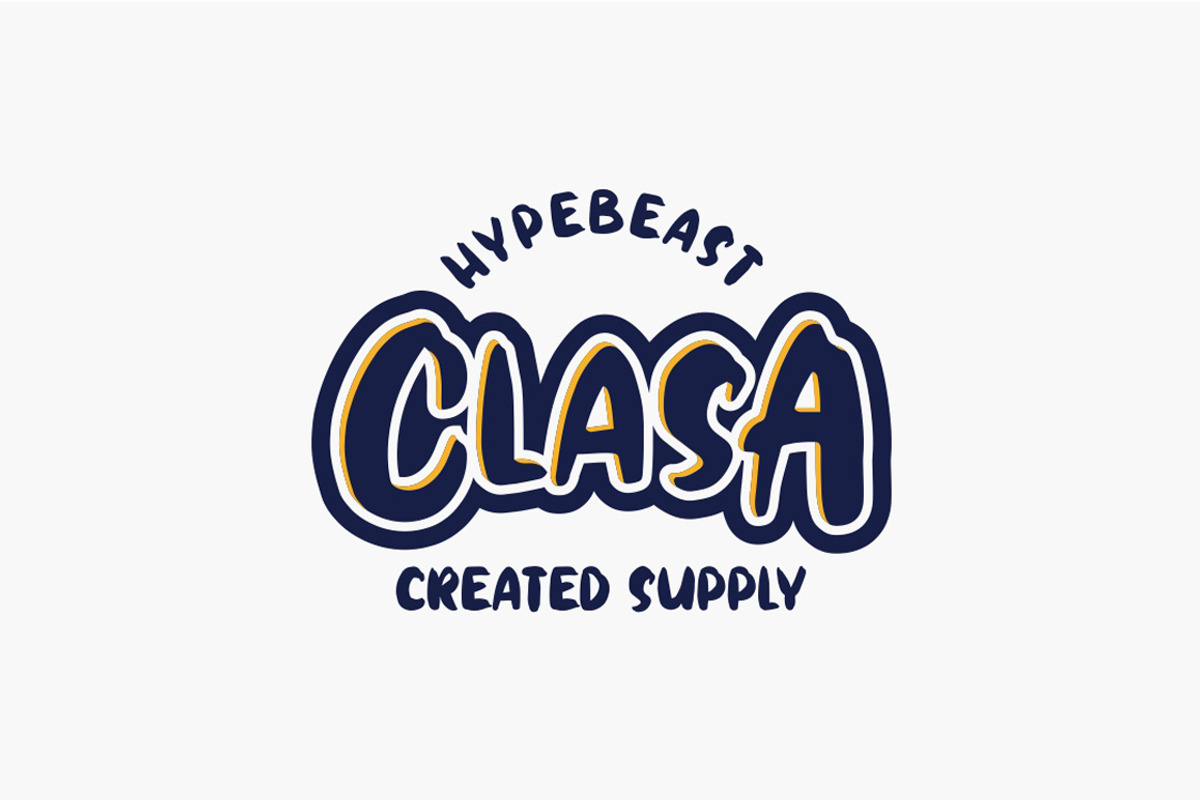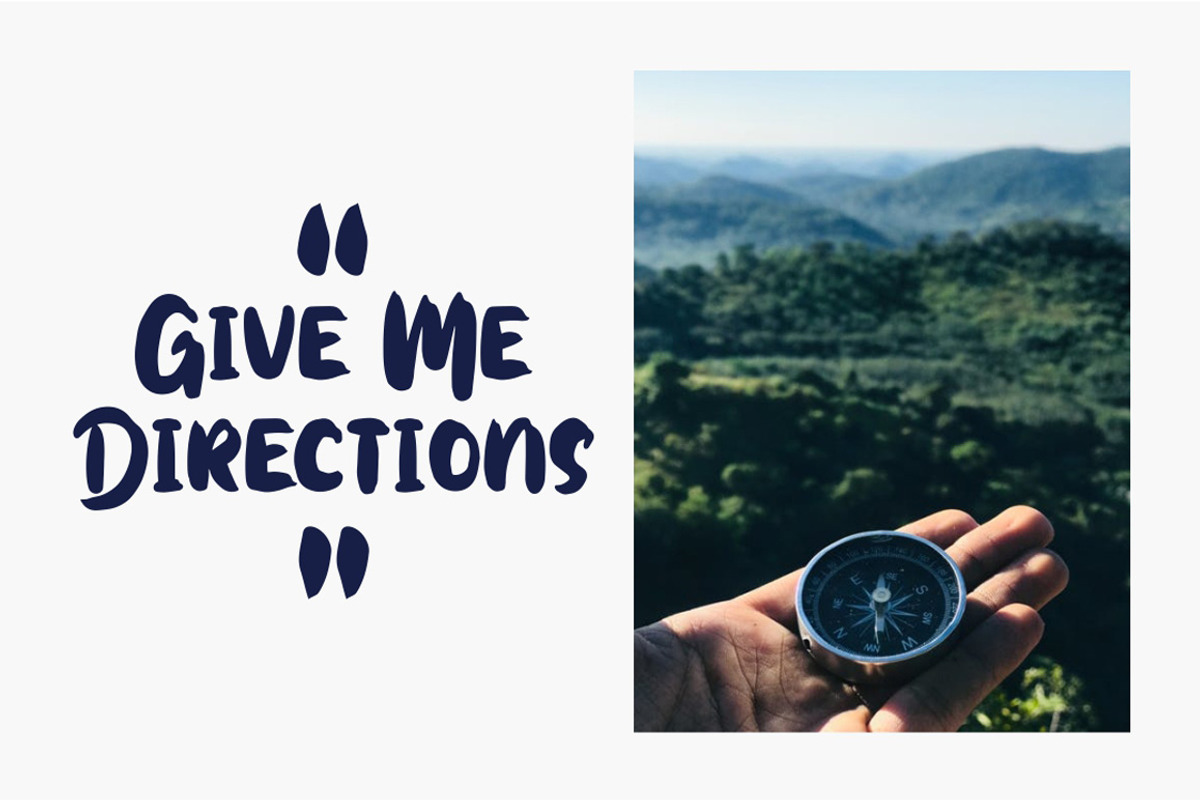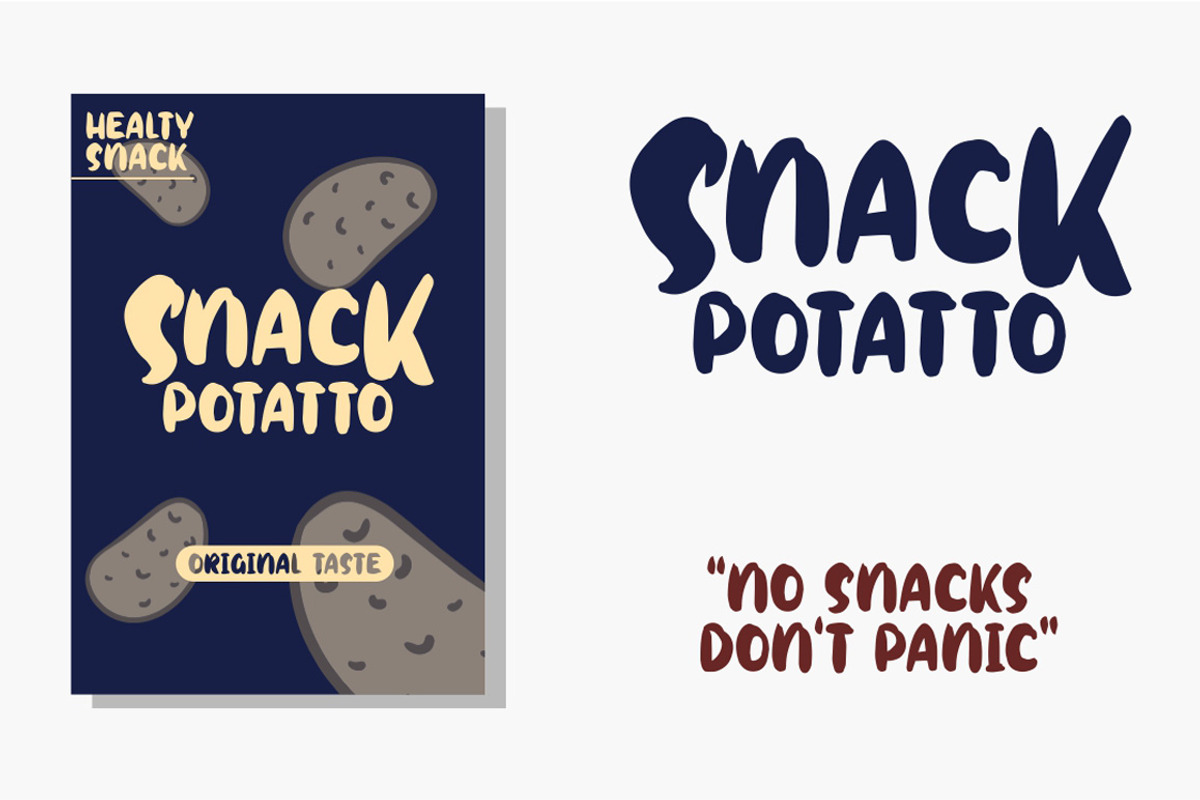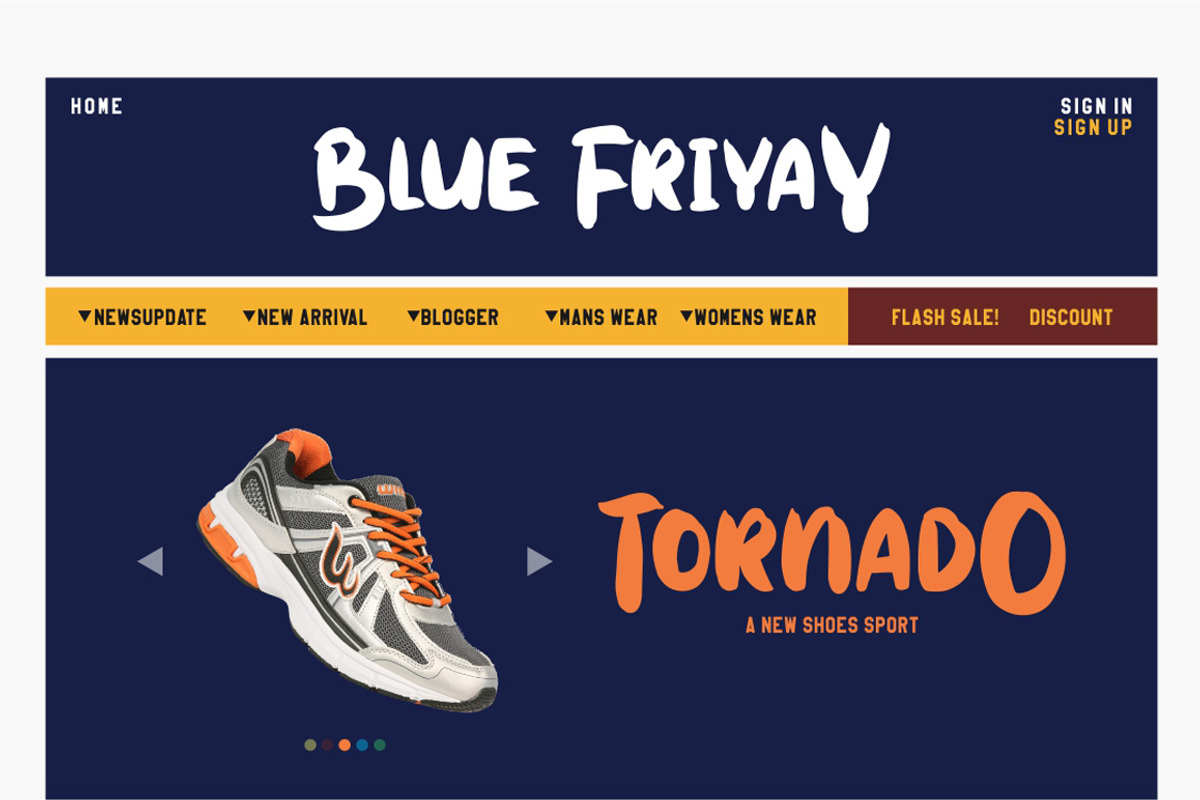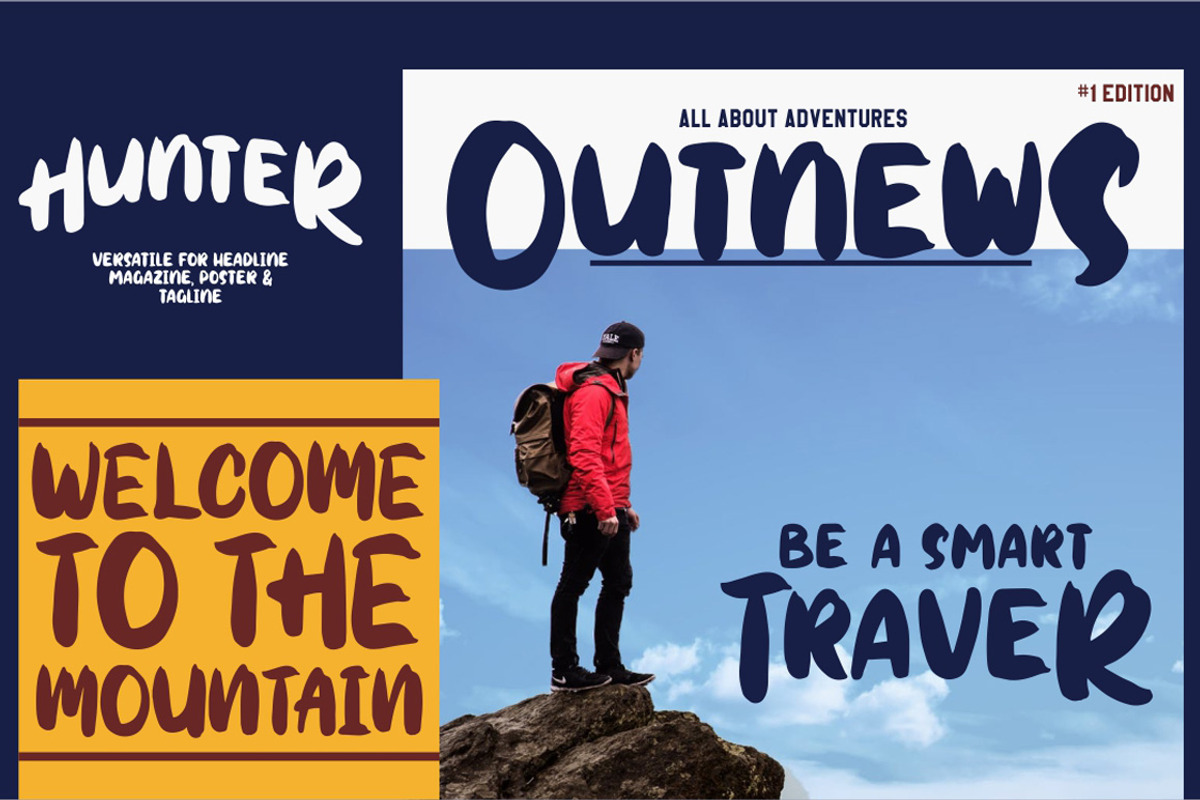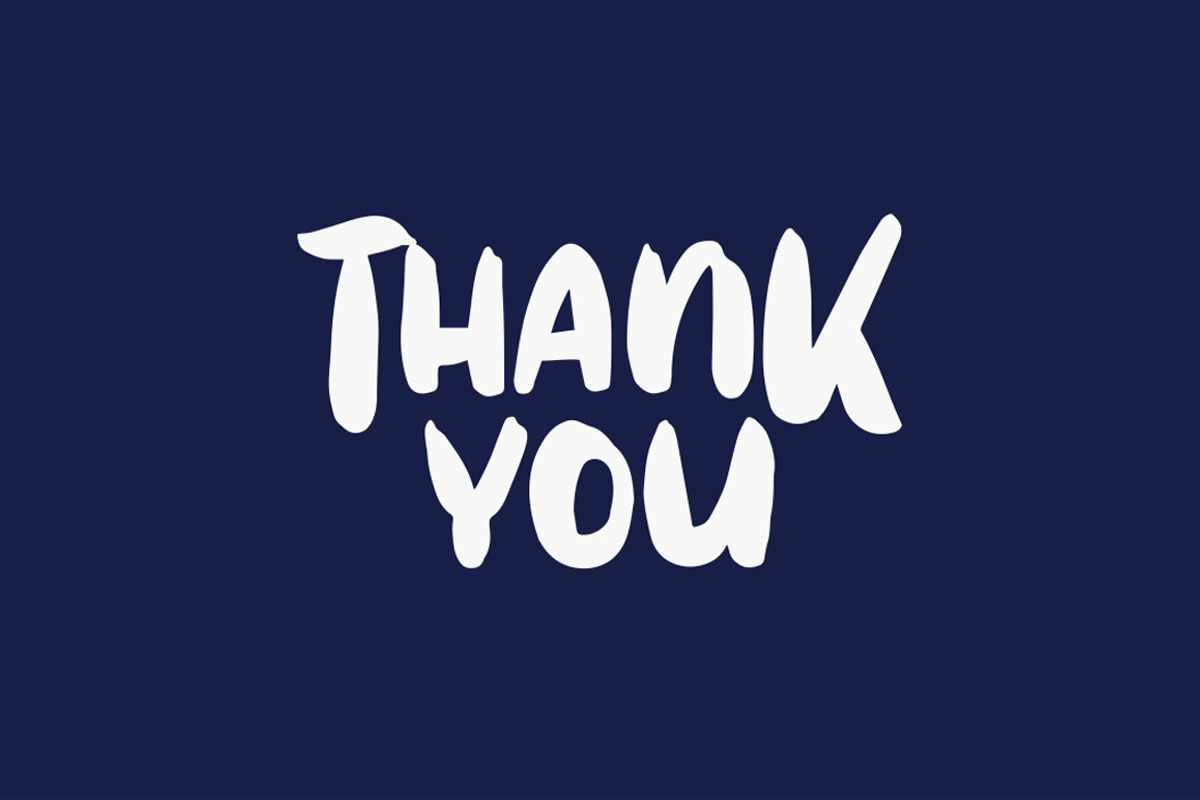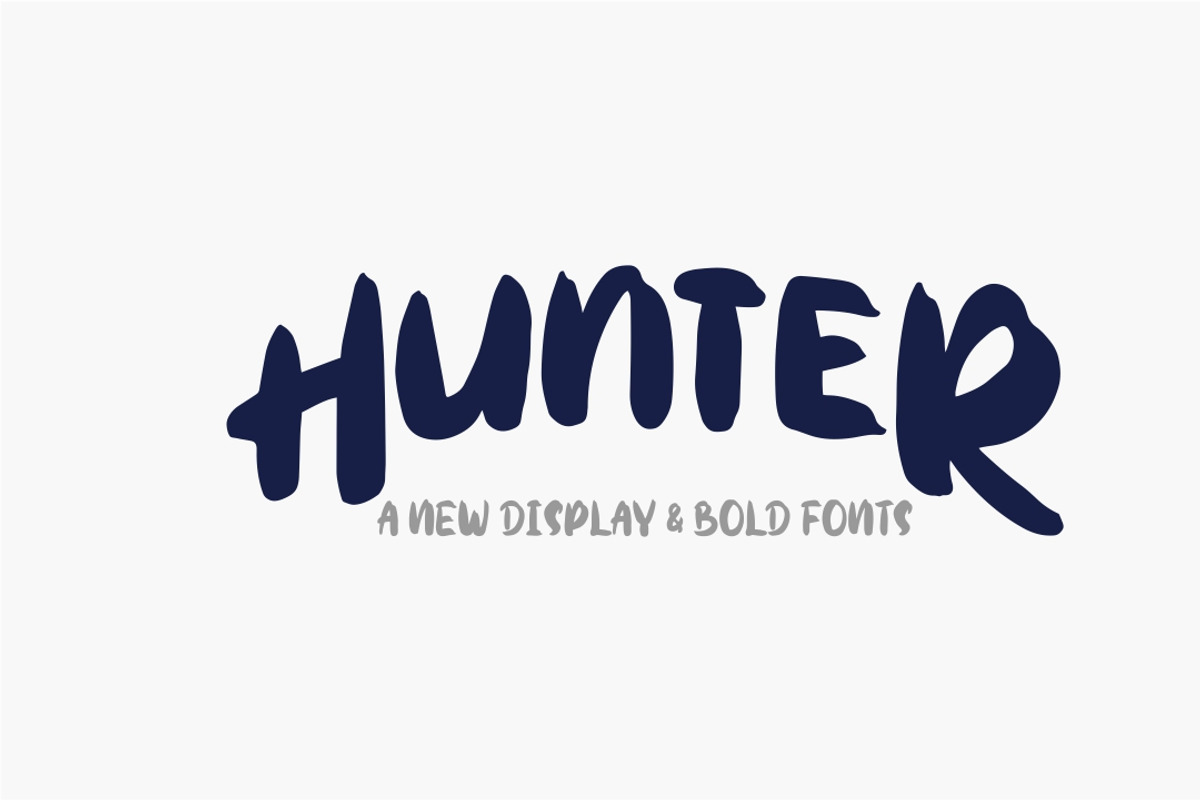
Hunter Typeface
Introducing a New Display and Bold font : HUNTER
HUNTER is a display and bold font, ideal for use in projects that need an the best design. This font is great for logo, logotype, branding, webfont, fashion, label, book cover, t-shirt, headline, magazine, and other.
- This font is great for logo, logotype, branding, webfont, fashion, label, book cover, t-shirt, headline, magazine, and other.
Why Hunter Typeface is worth a look
Hunter Typeface by Indotitas fits naturally into Branding, posters, packaging, typography.